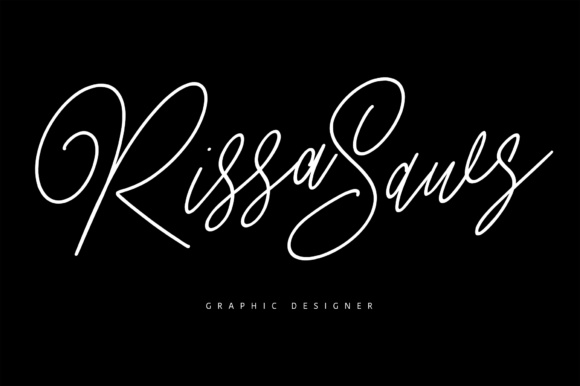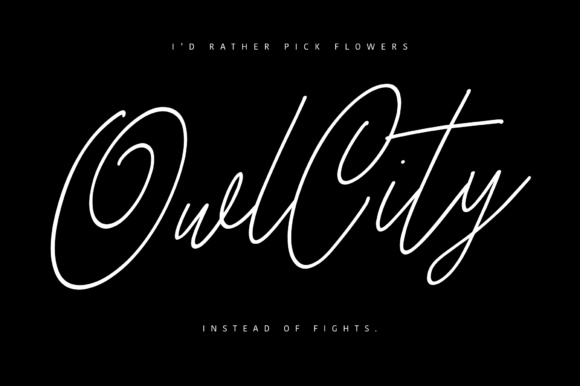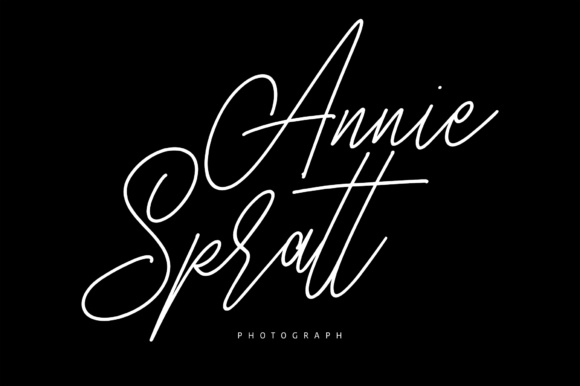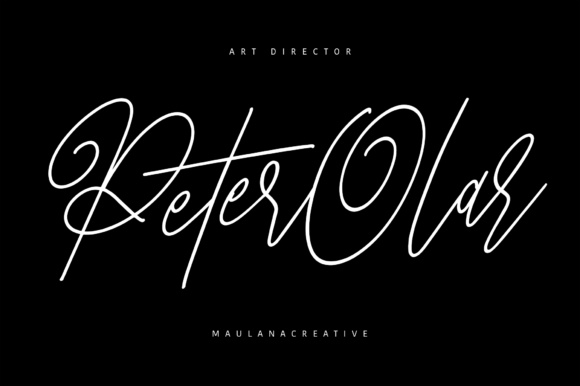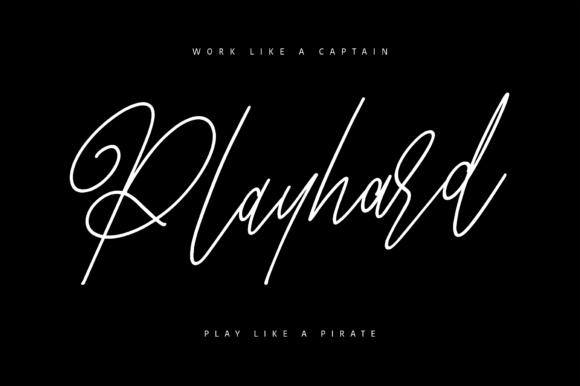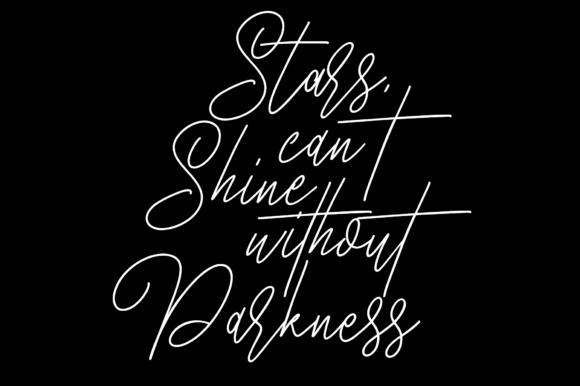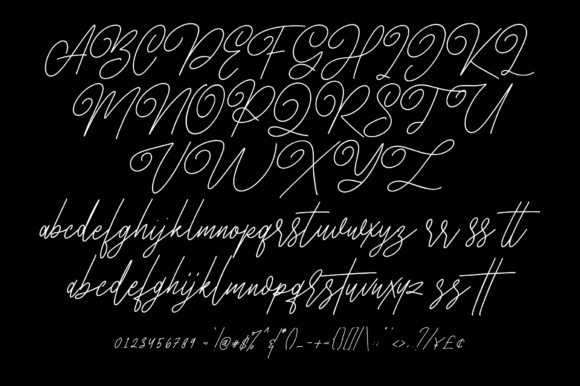
Batters Font
About Batters Font
Give your designs an authentic handcrafted feel with ‘Batters’.
It comes in a regular and alternative version and is perfectly suited for every design which needs a elegant, striking typeface!